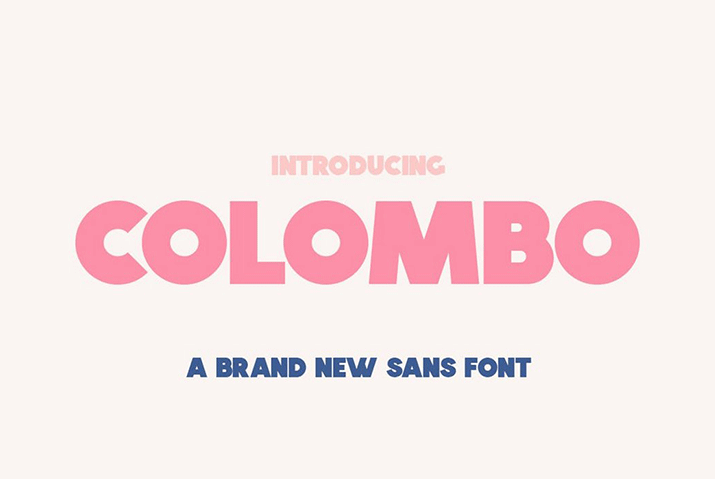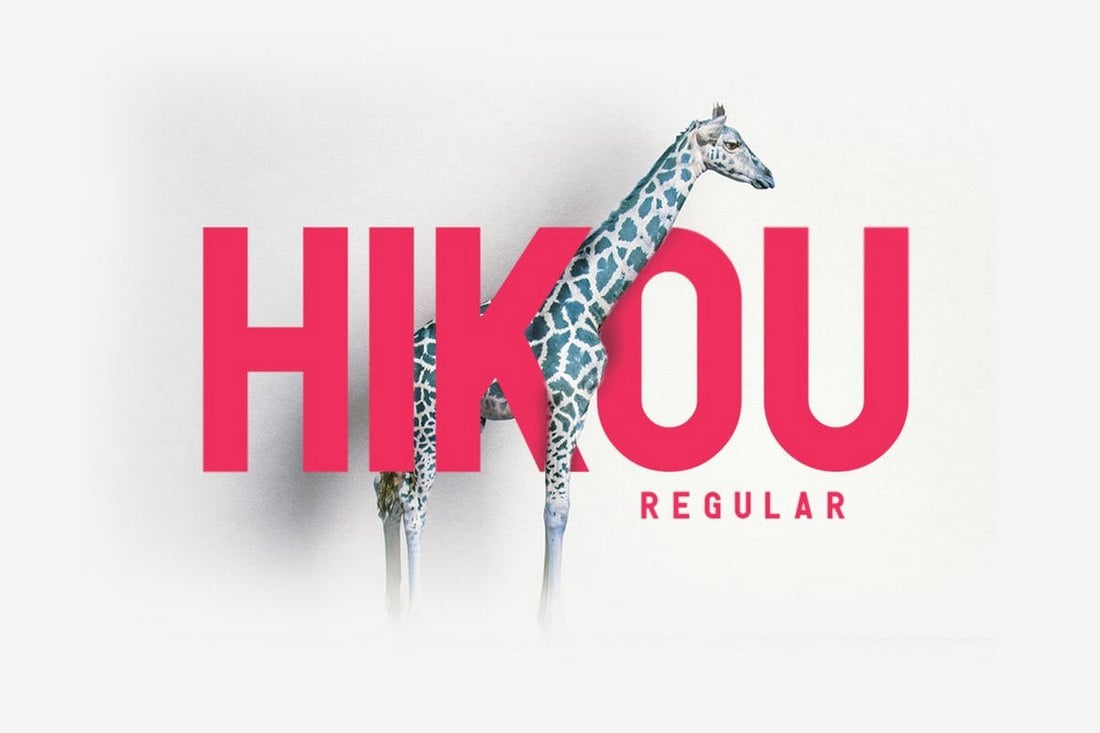
The headline or title can often be the most important part of a design. Which is why it’s always worth taking extra time to choose the best title font for your next project. The typeface you choose for your headline can draw people in, and grab their attention.
Well, you don’t have to waste any time searching for the perfect headline or title font because we did all the work for you. We put together this list of the best title fonts to use with all kinds of posters, flyers, websites, social media posts, and many other types of designs.
Plus, we’re sharing some tips for choosing a title font, to help point you in the right direction.
Flix is a modern and unique display font specially made for headlines and titles. It’s ideal for crafting titles for website headers, posters, flyers, and even greeting cards.
The font also comes in 2 different styles featuring regular and outline designs. This will allow you to combine the styles to create uncommon headlines for creative projects.
Hikou Regular is a bold and creative all-caps font that’s most suitable for design and fashion-related projects. Its thick and narrow spacing makes it a great choice for flyer designs.
Blue Fonte is a pair of modern fonts that features fonts in two different styles including a sans-serif font and a script font. Both of which you can combine to create stylish headlines and subheadings for your banners and posters.
Spot is an attractive and creative font you can use to create titles and headers that instantly grabs attention. The font features all-caps letters and comes in 4 styles including italic and outline versions.
Travel Sans is a narrow display font that features a bold design. It’s designed for crafting titles and headlines for flyers and posters. The font also comes in TTF and OTF formats.
Ace Sans is a complete family of fonts that includes a total of 8 fonts featuring various weights ranging from thin to extra bold and more. You can use this font to create titles as well as paragraphs for luxury and high-end branding designs.
ACDA is a professional title font crafted to perfection. The font includes both uppercase and lowercase letters and it’s completely free to use to with your personal and commercial projects.
Coldiac is an elegant free font you can use to design titles for fashion and high-end branding designs. The font is free to use with your personal projects.
Bogem is an outstanding font that can be used for movie titles, posters, headlines, banners, and billboards. Don’t hesitate to take this incredibly remarkable font for a spin.
Quart is an amazingly unique font for headlines, big text, branding, logotypes & display usage. This font is also perfect for creating outstanding logos, promotional content and marketing graphics that can really grab attention from your visitors.
If you are looking for an ultimate bold font and add more versatility to your content, then you should check out this font. The Chakie font comes in a variety of styles including, soft, outline, inline, shadow, and reduced heights, making it a perfect fit for headline applications, powerful headlines, bold statements, dramatic titles, and more.
Gayeng is an outstanding headline font. It is known for its super bold style and contains up to 6 alternatives for each character. This great font includes regular, bold, oblique, and outline styles, making it an ideal choice for headlines, posters, merchandise, branding, and more.
Mia Love is a special brush font designed to look bold, with a perfect texture, suitable for today’s designs. Perfect for use in design titles such as invitations, signboards, book titles, stationery designs, quotes, branding, logos, greeting cards, packaging designs, posters, and more.
Visage features a very unique textured design with a slightly vintage look and feel. It’s perfect for crafting titles for posters and book covers. It’s an all-caps font with support for multilingual characters.
Media Times is an elegant serif font most suitable for designing titles and headers for high-end and luxury brands and businesses. The is also suitable for logos and newspaper-style headings as well.
Chillow is a creative title font that comes with a unique hand-drawn design. It’s a sans-serif font with a touch of retro vibes. This all-caps font comes in italic and regular styles as well as ligatures and alternates.
Okana is a family of sans-serif fonts made for professionals. This font can be used to design both titles and body text of various design projects. It includes 8 fonts with matching obliques, making a total of 16 font styles.
Aqum is another free font you can use to create unique and creative titles for posters and flyers. You can use it freely with personal and commercial projects.